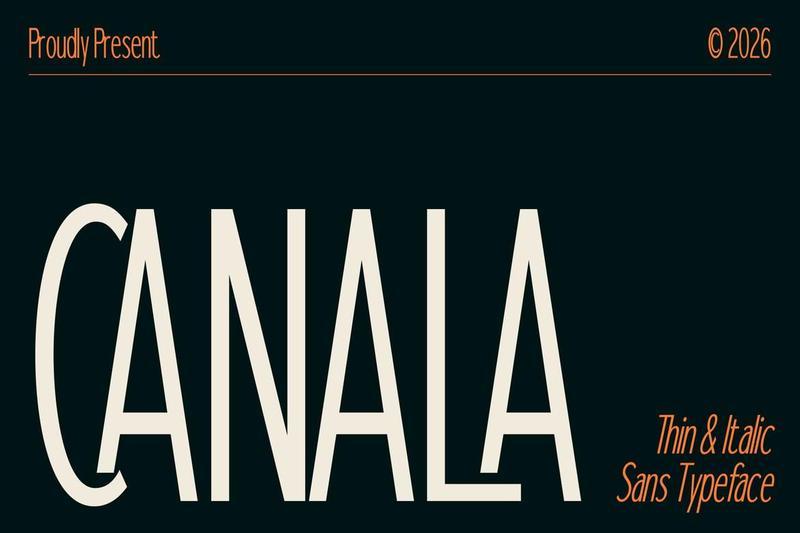
Canala Sans – Modern Luxury Sans Typeface DEKSV47
Canala Sans is a modern luxury sans typeface designed to bring elegance, sophistication, and timeless appeal to contemporary branding projects. Featuring slender proportions, graceful curves, and refined details, this typeface creates a distinctive visual identity that feels premium without being excessive. Its clean and confident appearance makes it ideal for luxury brands, fashion labels, editorial design, hospitality, beauty products, and upscale packaging.
Crafted to balance style and functionality, Canala Sans comes in **Thin** and **Italic** styles, offering designers the flexibility to build sophisticated typographic systems with ease. Featuring **380+ glyphs**, multilingual support, and carefully designed ligatures, the typeface adapts seamlessly across both print and digital applications. Whether you’re designing an elegant logo, a fashion campaign, a luxury website, or a premium editorial layout, Canala Sans delivers a refined and memorable visual experience.
Elevate your brand with Canala Sansa modern luxury typeface that combines simplicity, elegance, and contemporary character to create typography that feels effortlessly premium.